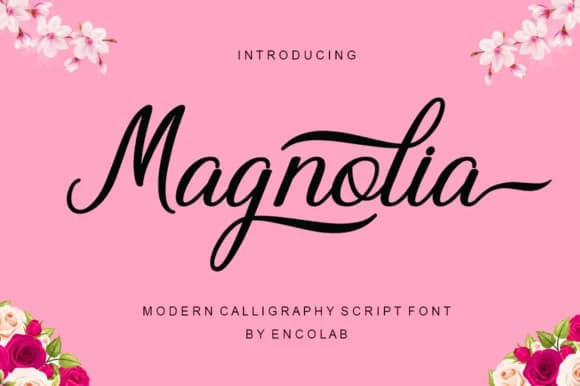
Magnolia Font by Encolab is a flowing handwritten script that blends contemporary elegance with an organic, natural quality that feels both refined and genuinely approachable. Its fluid letterforms excel in wedding invitation suites, artisan product packaging, and boutique branding where personal warmth strengthens the design's connection with audiences. Whether you're creating Etsy labels for handmade goods, designing heartfelt greeting card collections, or developing event signage for lifestyle and wellness brands, this typeface brings genuine human touch to professional applications that benefit from character and soul.
The font's natural rhythm suits small-business packaging projects, engaging social media graphics, and editorial headlines that call for handcrafted qualities. Its versatility translates across wellness brands, letterpress stationery collections, interior design presentations, and comprehensive branding packages where genuine expression builds lasting customer trust. The carefully weighted letterforms maintain elegant proportions while preserving excellent readability, avoiding the compromises that sometimes limit handwritten scripts in professional design contexts and real-world applications.
Magnolia Font delivers handwritten personality to professional projects without sacrificing practical usability or clarity. The result works equally well applied to a boutique identity system or heartfelt invitation suite, feeling both personal and polished. Discover Magnolia Font on Creative Fabrica and add genuine script character to your next creative project.
Magnolia Font by Encolab Font is a script font that shines as a display or heading face. Pair it with a clean sans-serif or serif font for body text β the contrast creates a clear hierarchy while the two styles stay balanced and easy to read.